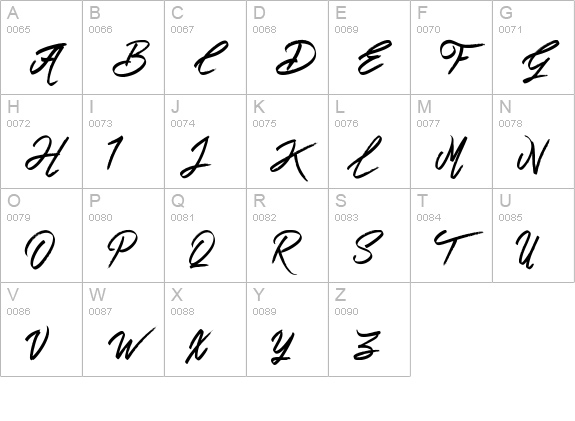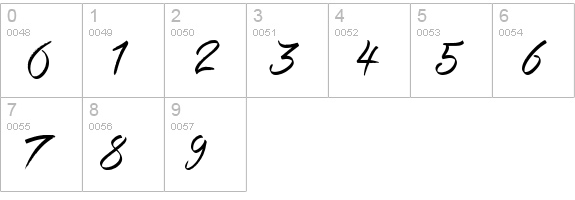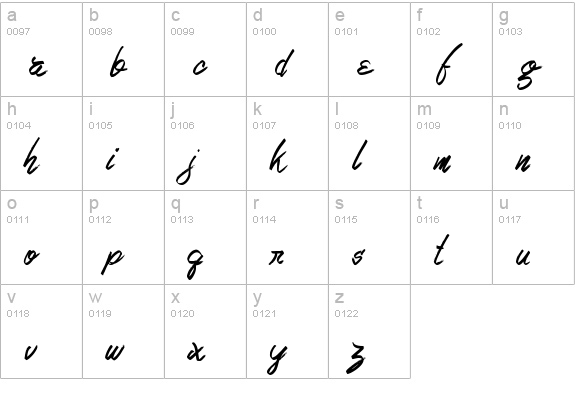
Love Rock Font Details
Love Rock is a captivating and expressive typeface that embodies the essence of love and the raw energy of rock music. Its bold and edgy design is reminiscent of the rebellious spirit that has defined the rock genre for decades. With its striking presence and intricate details, Love Rock commands attention and leaves a lasting impression. Crafted with meticulous care, Love Rock combines the elegance of calligraphy with the strength and power of rock and roll. Each letter is carefully hand-drawn, resulting in a unique and authentic style that sets this font apart from others. The carefully crafted curves and sharp edges create a harmonious balance, making Love Rock both visually stunning and highly legible. One of the most remarkable features of Love Rock is that it is freely available for download at FontsMarket.com. This means that you can easily access this exceptional font without any hassle or cost. Whether you are a designer looking to add a touch of rock-inspired creativity to your projects or simply a fan of typography, Love Rock offers a remarkable opportunity to enhance your work with its distinctive charm. Love Rock is versatile and can be used in a variety of design projects. From album covers to posters, logos to social media graphics, this font is perfect for adding a bold and captivating touch to any visual composition. Its wide range of uppercase and lowercase letters, numbers, and punctuation marks ensures that you have all the tools you need to create visually stunning and impactful designs. With Love Rock, you can infuse your designs with a sense of passion and energy that will resonate with your audience. So why wait? Download Love Rock for free at FontsMarket.com and embark on a typographic journey that combines the beauty of love and the power of rock.